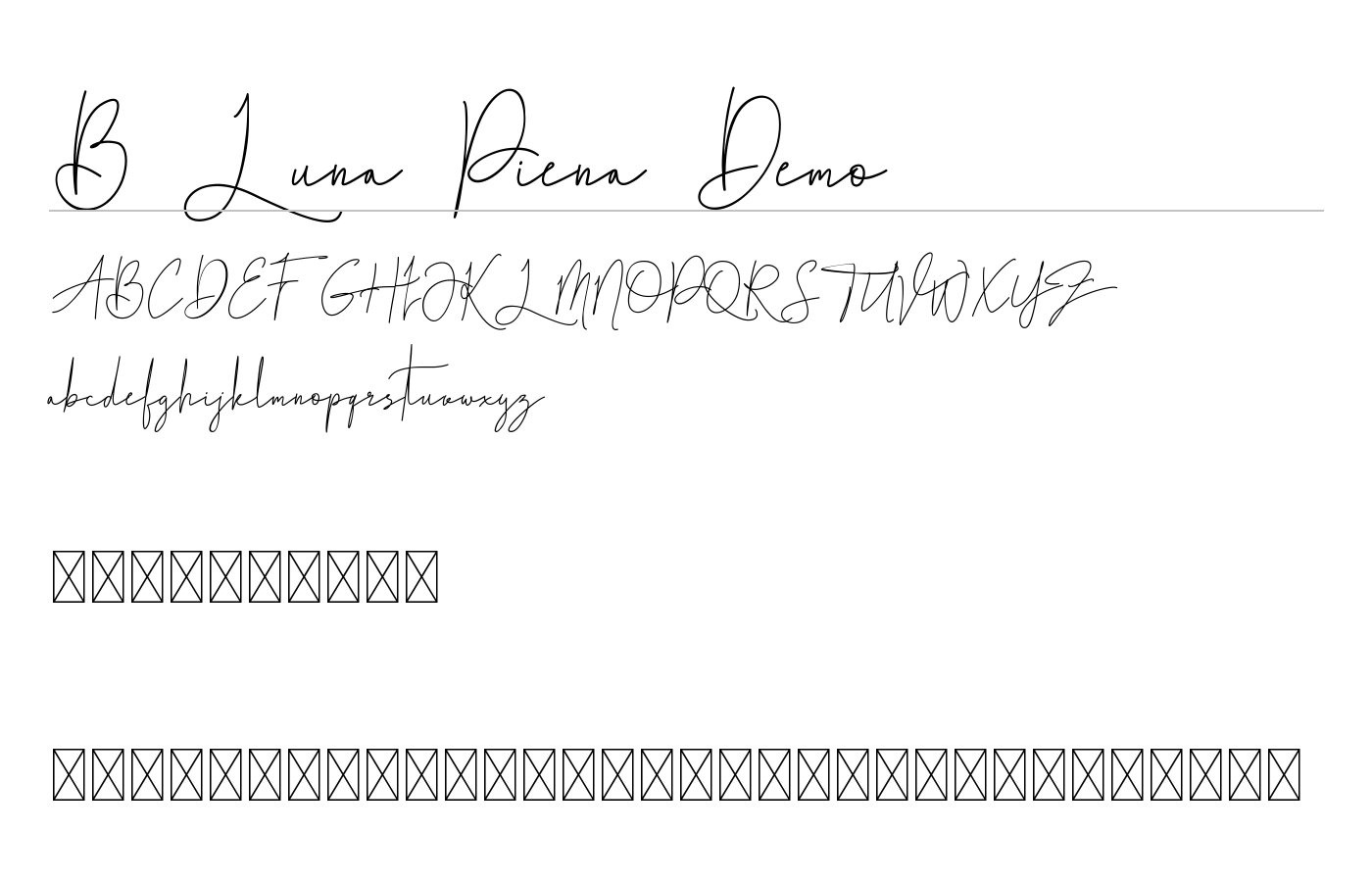
B Luna Piena Demo is a delicate, handwritten script font with tall, slender letterforms and elegant, flowing strokes. Its light weight and airy design convey a sophisticated and artistic feel, making it ideal for creative branding, invitations, and stylish editorial projects where a personal, graceful touch is desired. This font shines in uses that benefit from its refined, modern cursive charm.
B Luna Piena Demo Font
About B Luna Piena Demo Font